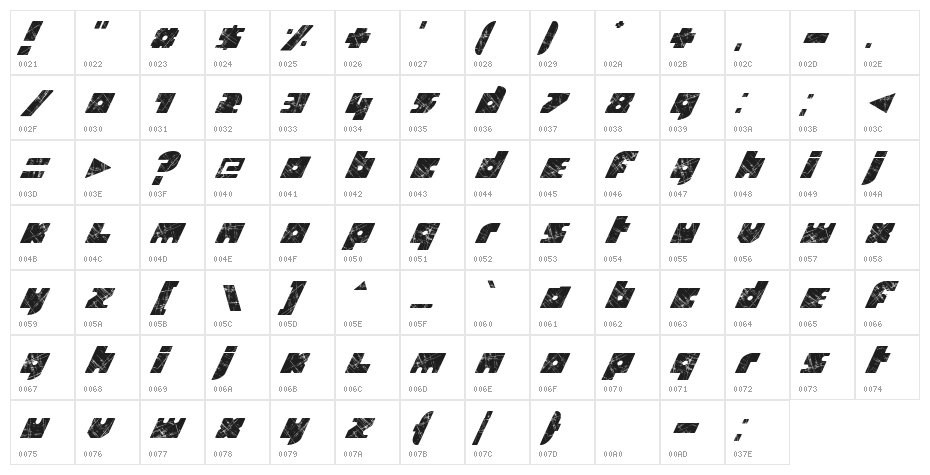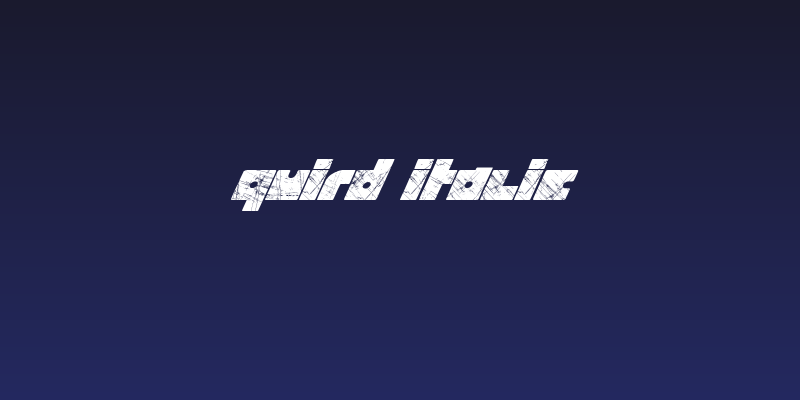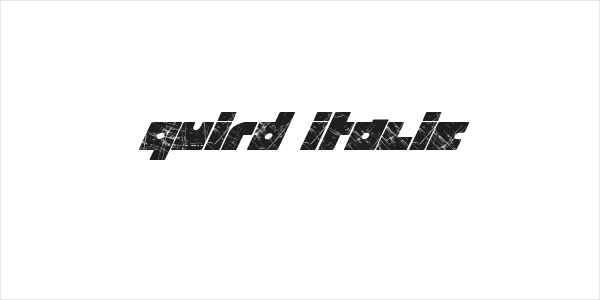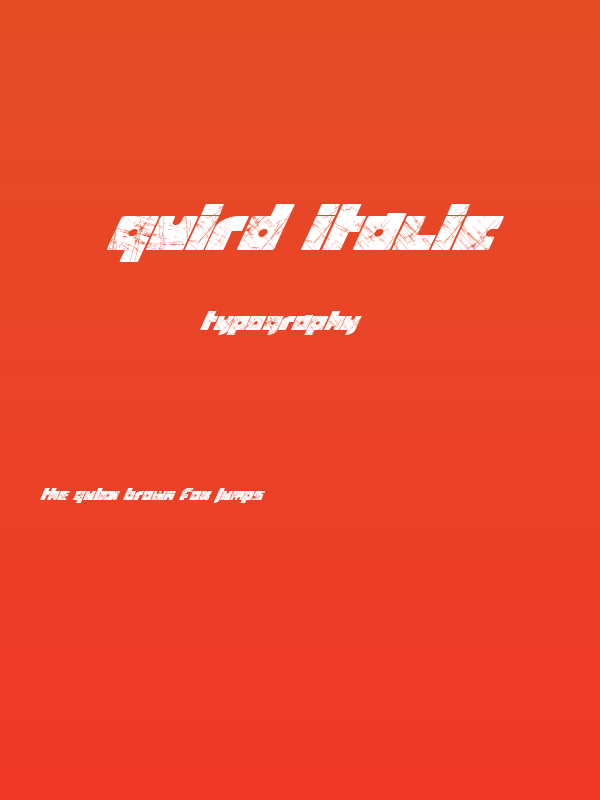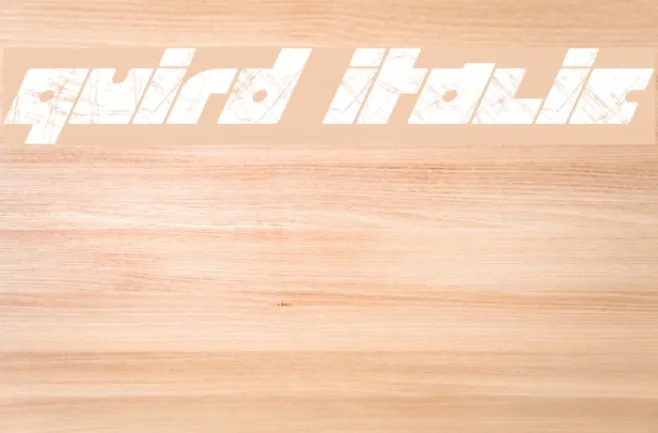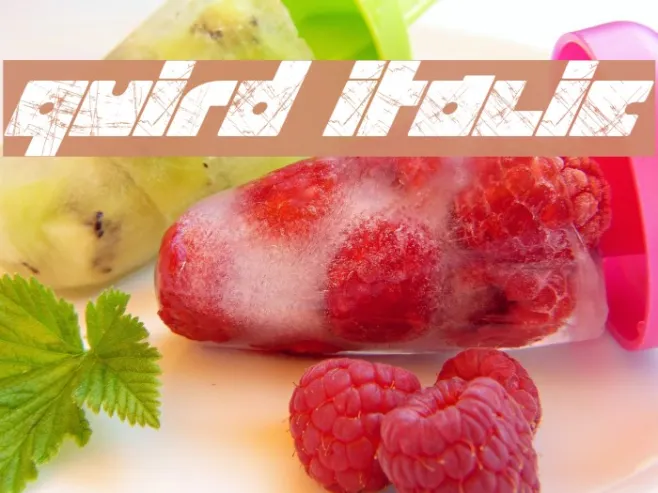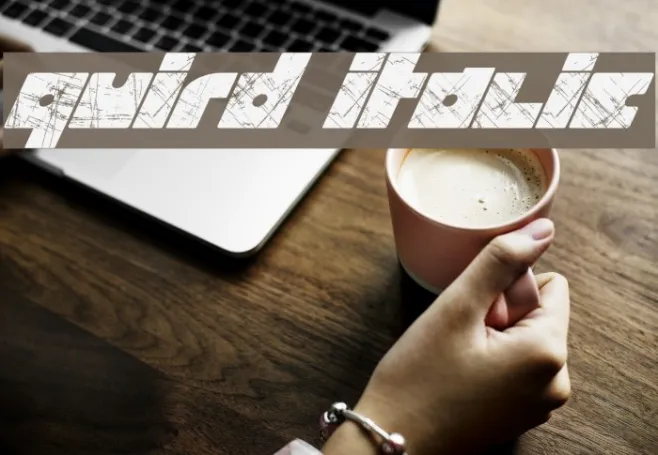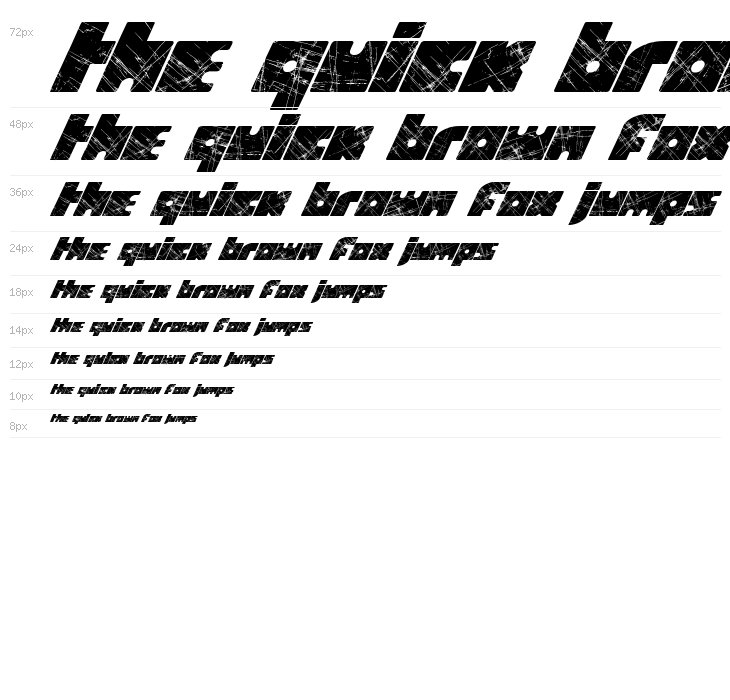
Quird Italic Font
Quird Italic Description
This font features a bold, italicized style with a distinct, edgy appearance. The characters are heavily stylized with a scratched, distressed texture, giving them a rugged and dynamic look. The angular design and slanted orientation add a sense of motion and energy. The uppercase and lowercase letters maintain a consistent style, with sharp edges and a compact form. Numbers and special characters follow the same design principles, ensuring uniformity across all glyphs. This font's unique aesthetic makes it stand out, ideal for projects that require a strong visual impact.
| Overall Style | Modern, Edgy |
| Proposed Projects | Ideal for edgy branding, music album covers, sports team logos, and urban-themed posters. |